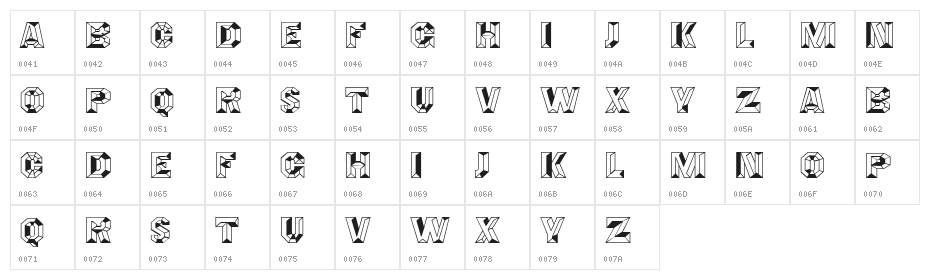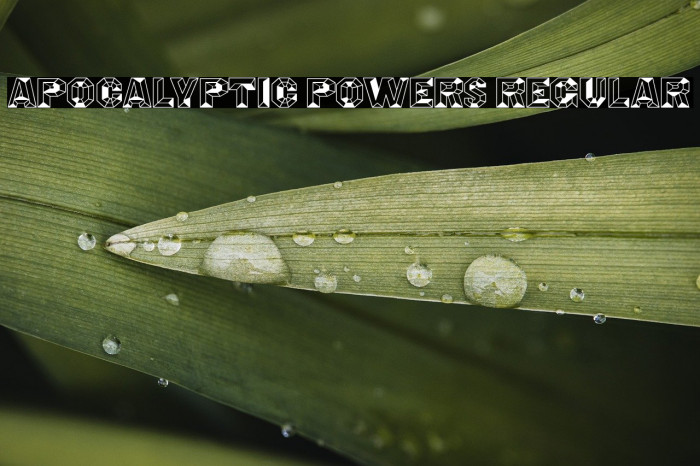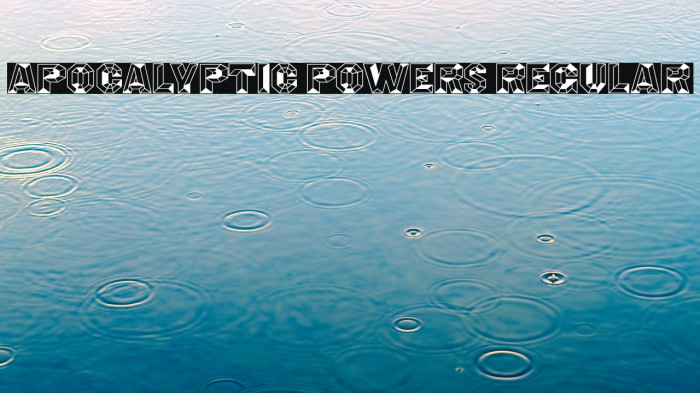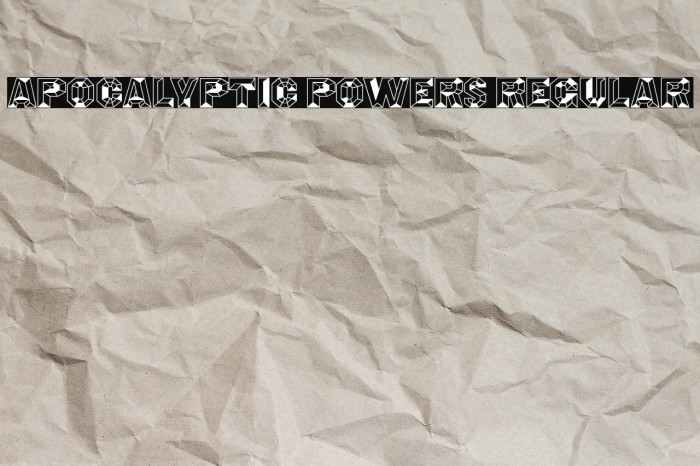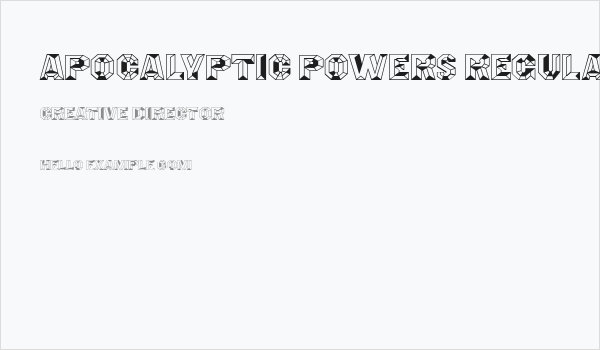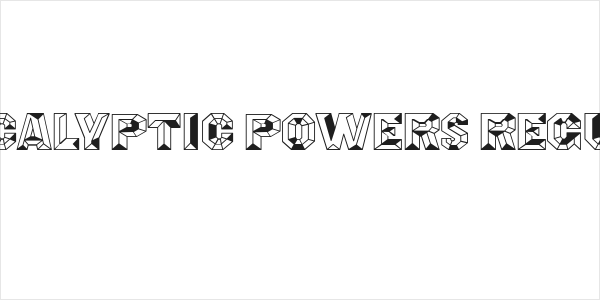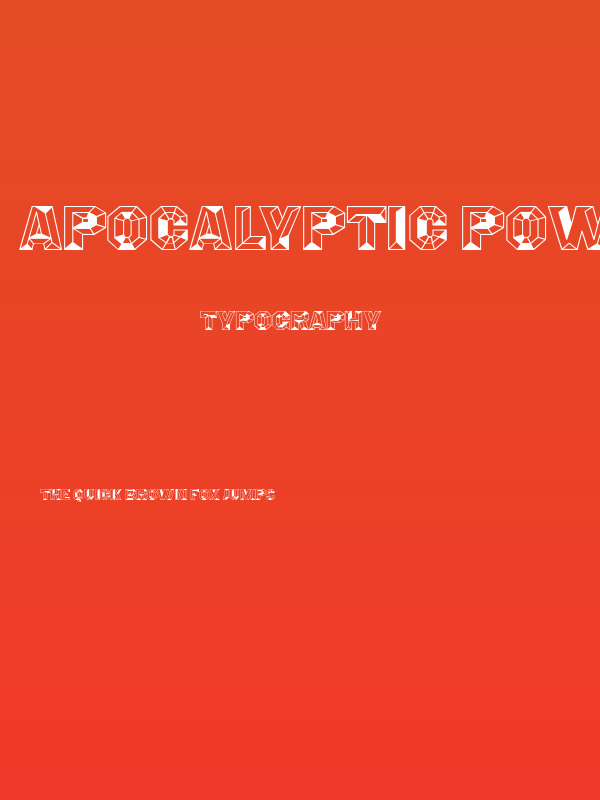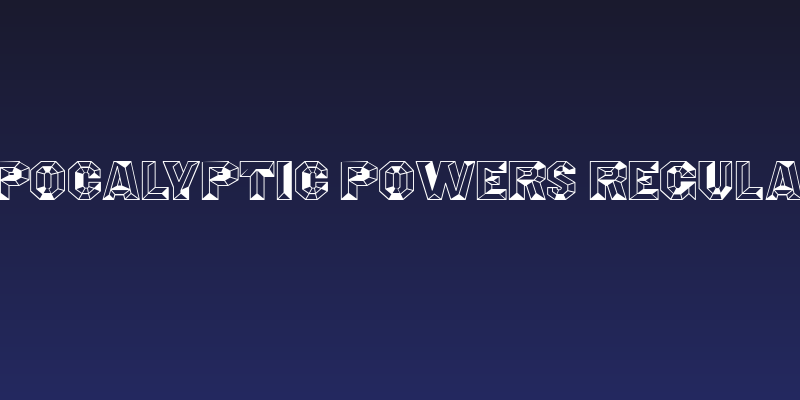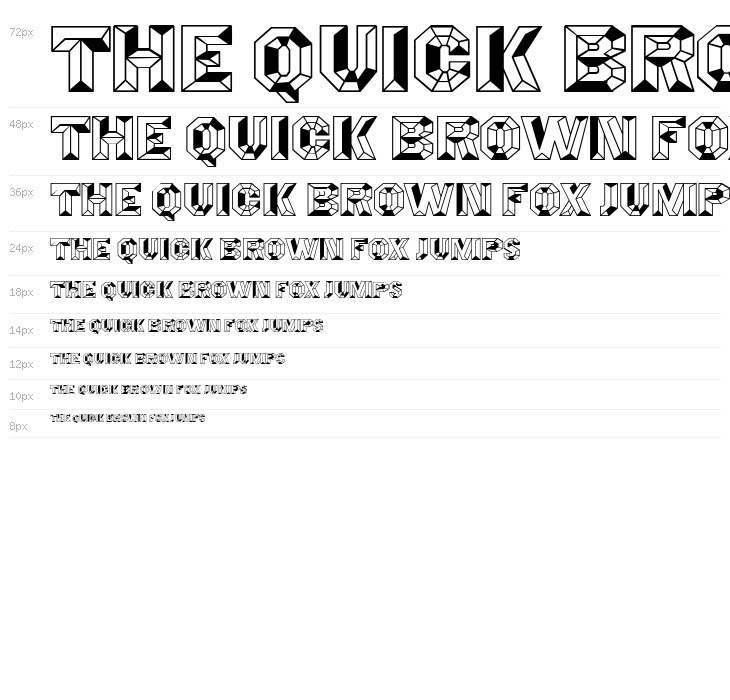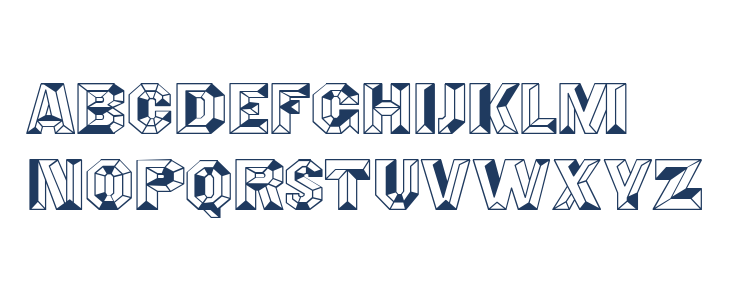
Apocalyptic Powers Regular Font
| Kategorien | 3D |
| Gesamtstil | Futuristic, Edgy |
| Vorgeschlagene Projekte | Ideal for sci-fi themed posters, video game titles, futuristic branding, and digital art projects. |